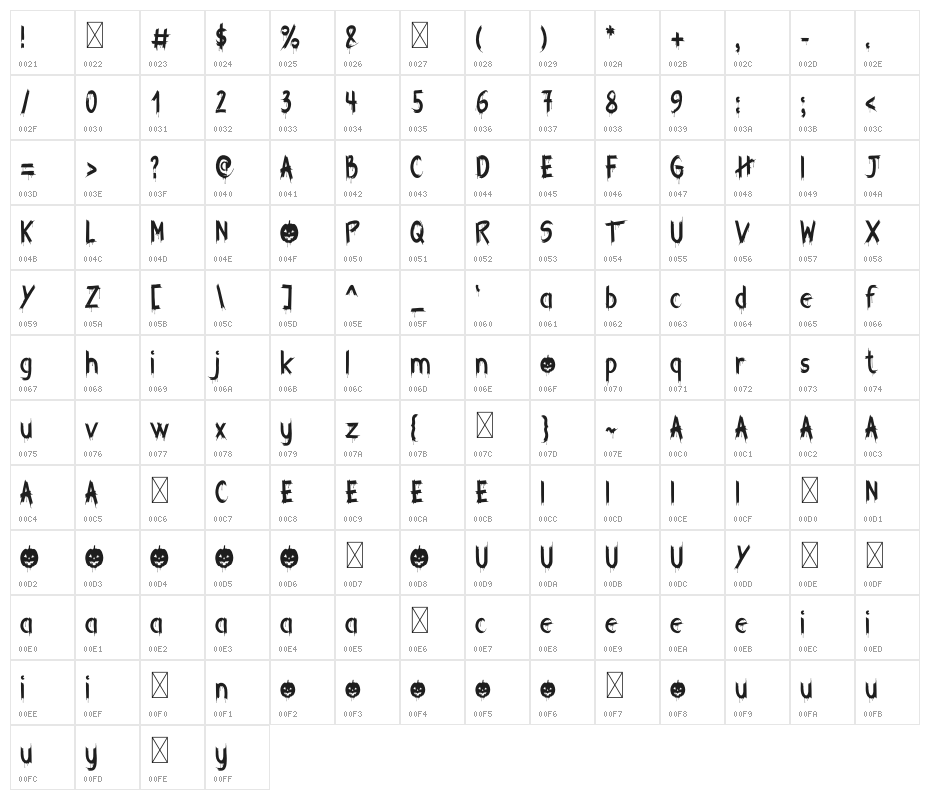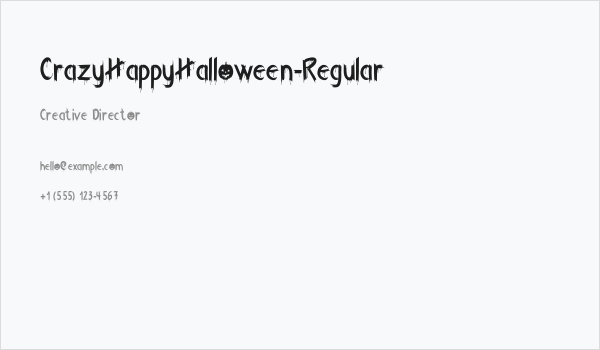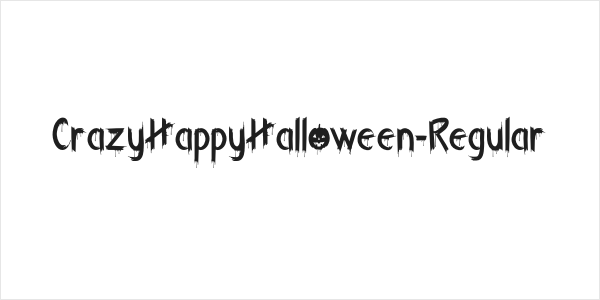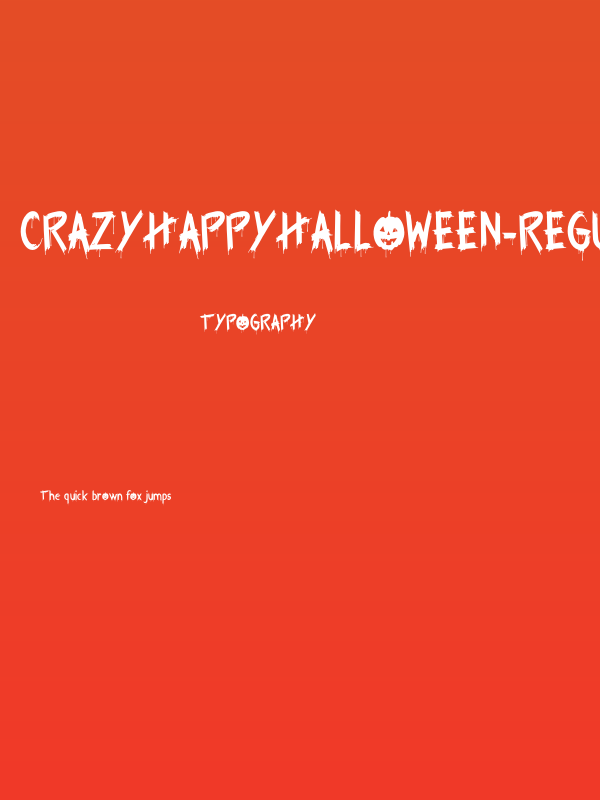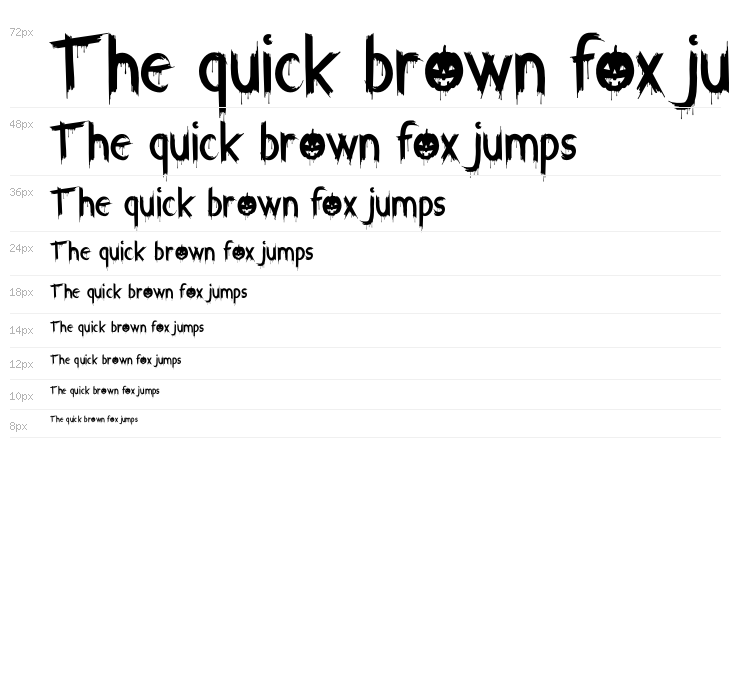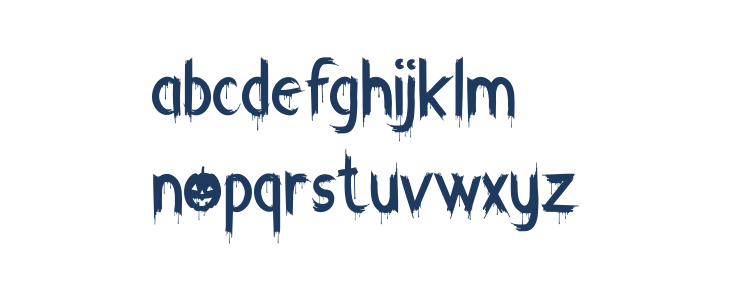
CrazyHappyHalloween-Regular Font
CrazyHappyHalloween-Regular Description
| Overall Style | Decorative, Spooky, Playful |
| Use Case | Headlines, Posters, Themed Graphics |
| Proposed Projects | Halloween party invitations, spooky event posters, themed merchandise, children's crafts, seasonal banners. |